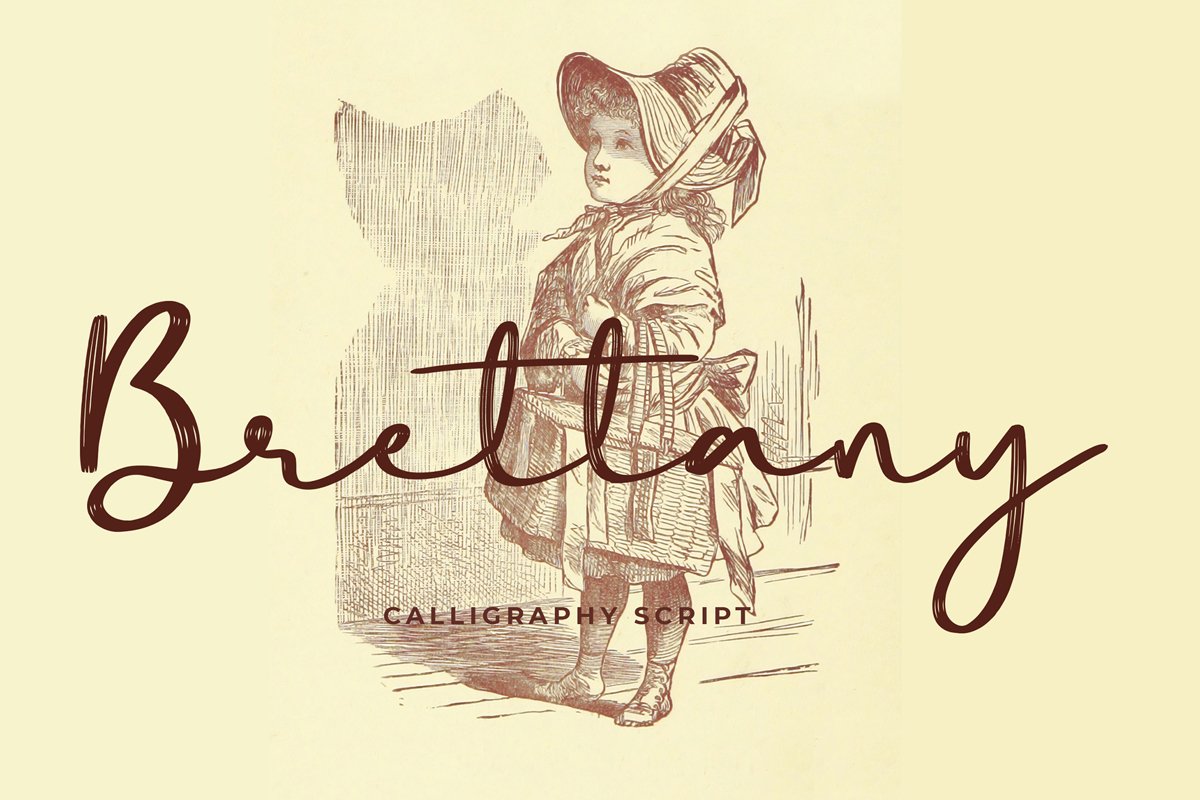
Brettany Calligraphy Brush Script
Brettany
Brettany is a calligraphy script can be used for various purposes such as logos, wedding invitations, t-shirts, letterheads, signage’s, labels, and much more!What's Included :
Brettany Calligraphy Brush Script